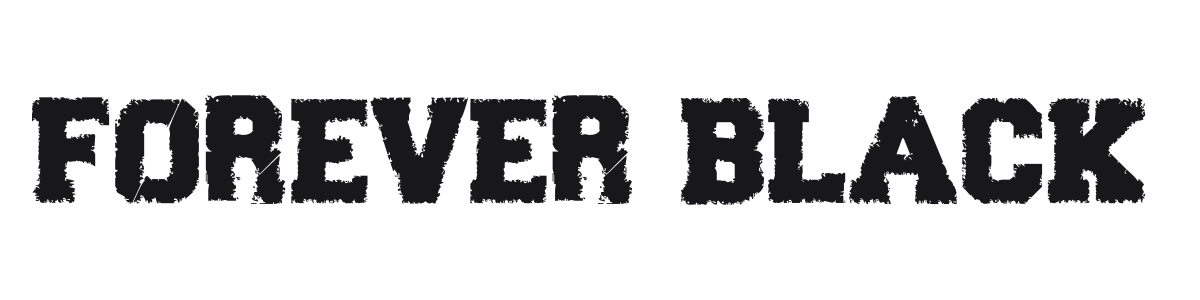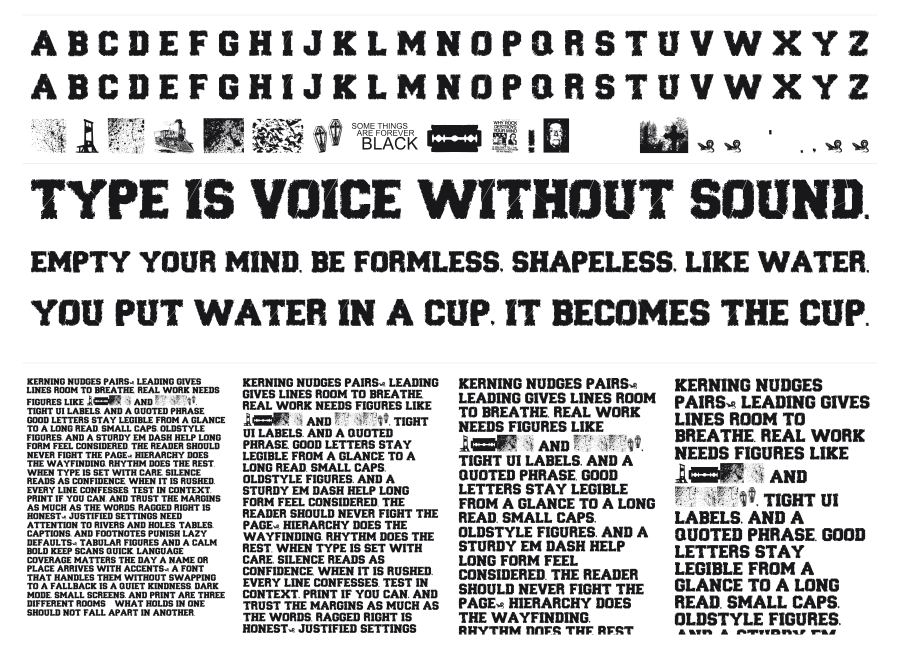
Forever Black
Forever Black is a bold condensed slab serif aged by heavy distressing that chips, cracks, and roughens every surface. The underlying structure draws from Americana and sporting type traditions, giving it a tough, authoritative skeleton beneath the grit. It reads instantly as worn, loud, and unapologetic.